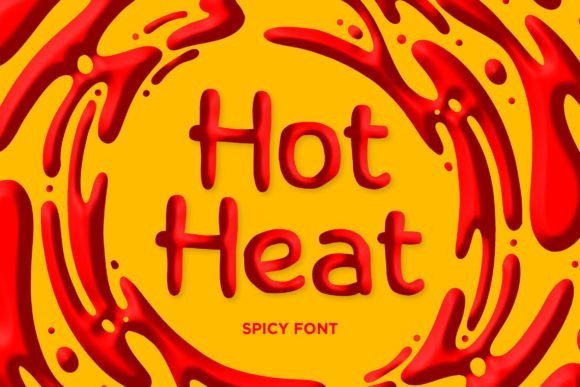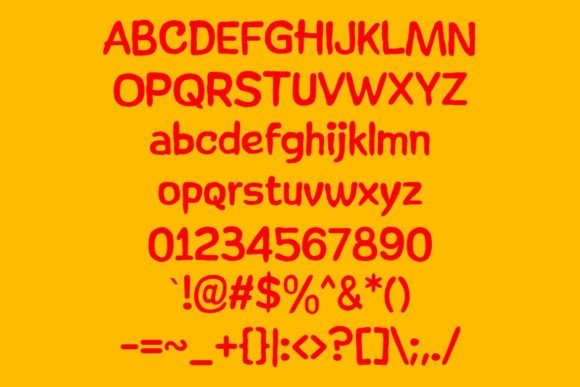
The Birth of a Scorching Font: Hot Heat Font
As a designer, have you ever been brainstorming ideas and suddenly hit upon a concept that makes your heart skip a beat? For us, it was the moment we discovered the perfect blend of spice and style – the Hot Heat Font. This sizzling new font is inspired by the tantalizing drips of chili sauce and the bold shape of the chili itself.
Perfectly suited for designers looking to add some heat to their projects, the Hot Heat Font is a game-changer for those working on spicy food and beverage designs, Halloween concepts, and drip wet look visuals. With its bold, eye-catching style, this font is sure to leave a lasting impression on your audience.
Hot Heat Font Key Features
- Unique Characteristic: Hot Heat Font features a unique blend of modern and vintage elements, creating a distinctive visual identity that sets it apart from other fonts.
Designer Review: “Hot Heat Font”
Overall, I think “Hot Heat Font” is a decent addition to any designer’s toolkit. Here’s what I think works well:
- ✨ It’s perfect for creating a bold and energetic vibe in your designs. The font’s unique shape and flair make it ideal for branding and advertising materials.
- ✨ The font is highly customizable, allowing you to adjust its size, color, and style to fit your design needs.
- ✨ It’s great for adding a touch of modernity and trendiness to your designs, especially when used in combination with other modern fonts.
However, I do have some reservations:
- ⚠️ The font can be overwhelming if used excessively. Its bold and playful nature can easily become too much, so be careful not to overdo it.
- ⚠️ The font may not be suitable for all types of designs, such as academic or formal documents, where a more conservative and traditional font would be more suitable.
Overall, I think “Hot Heat Font” is a solid choice for designers who want to add some excitement and energy to their designs. Just be mindful of its limitations and use it wisely.
The Hot Heat Font is ideal for:
1. Creating attention-grabbing headlines.
2. Designing vibrant and energetic graphics.
3. Adding a touch of modernity to your designs.
To maximize the impact of the Hot Heat Font:
1. Use it sparingly to avoid overwhelming the viewer.
2. Pair it with complementary fonts for a balanced look.
3. Experiment with different font sizes and colors to create visual interest.
Alternatives to Hot Heat Font for Designers
Great Vibes is a fun, modern sans-serif font perfect for creating a lively atmosphere in branding and marketing materials. It’s ideal for use in posters, social media graphics, and websites. Great Vibes is a great alternative to Hot Heat Font as it offers a similar energetic feel without being too bold.
Comparison: Great Vibes is more legible and versatile than Hot Heat Font, making it suitable for a wider range of applications.
Pacifico is a beautiful, elegant script font ideal for creating a sophisticated and luxurious atmosphere in branding and marketing materials. It’s perfect for use in wedding invitations, packaging, and high-end websites. Pacifico is a great alternative to Hot Heat Font as it offers a more refined and sophisticated feel.